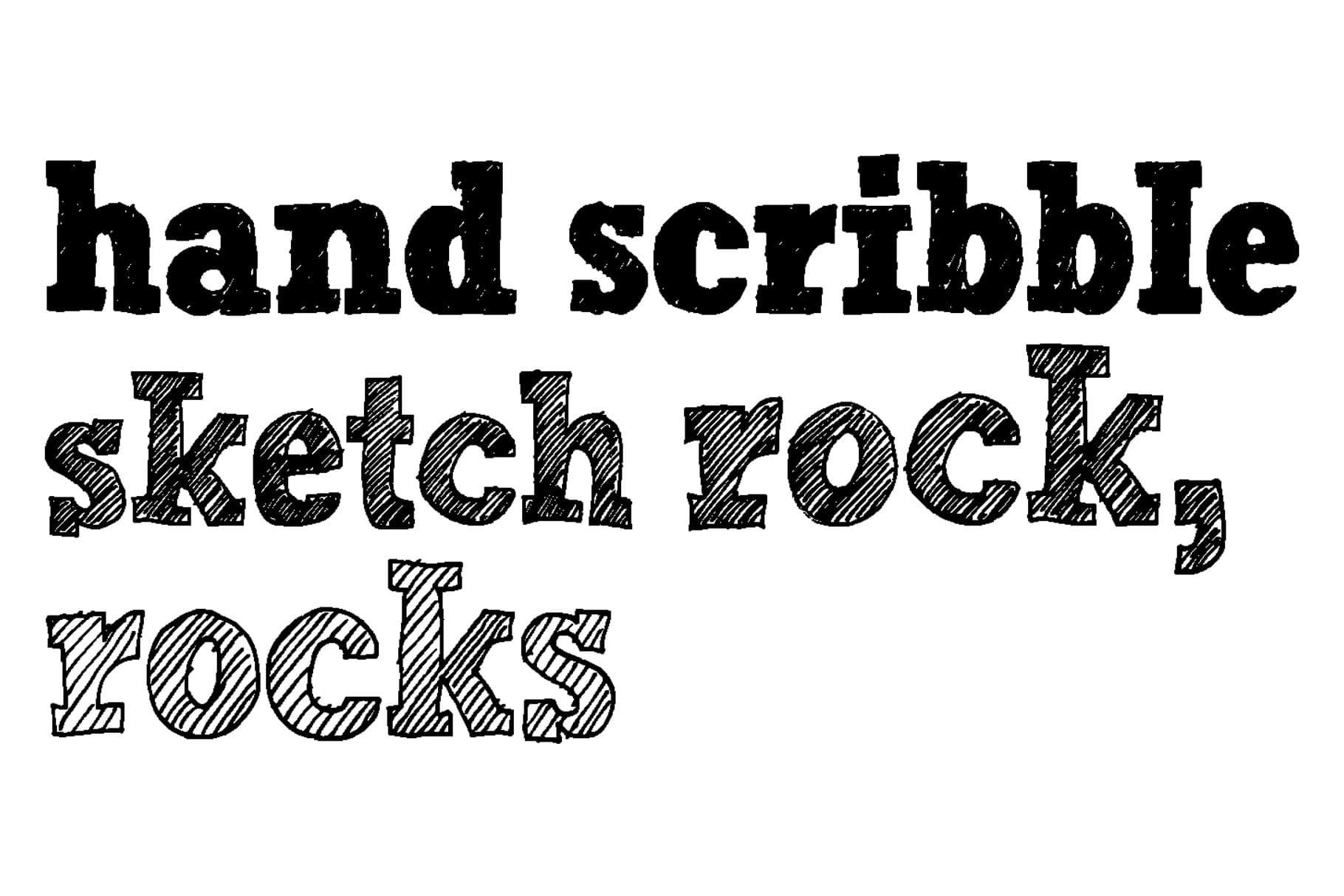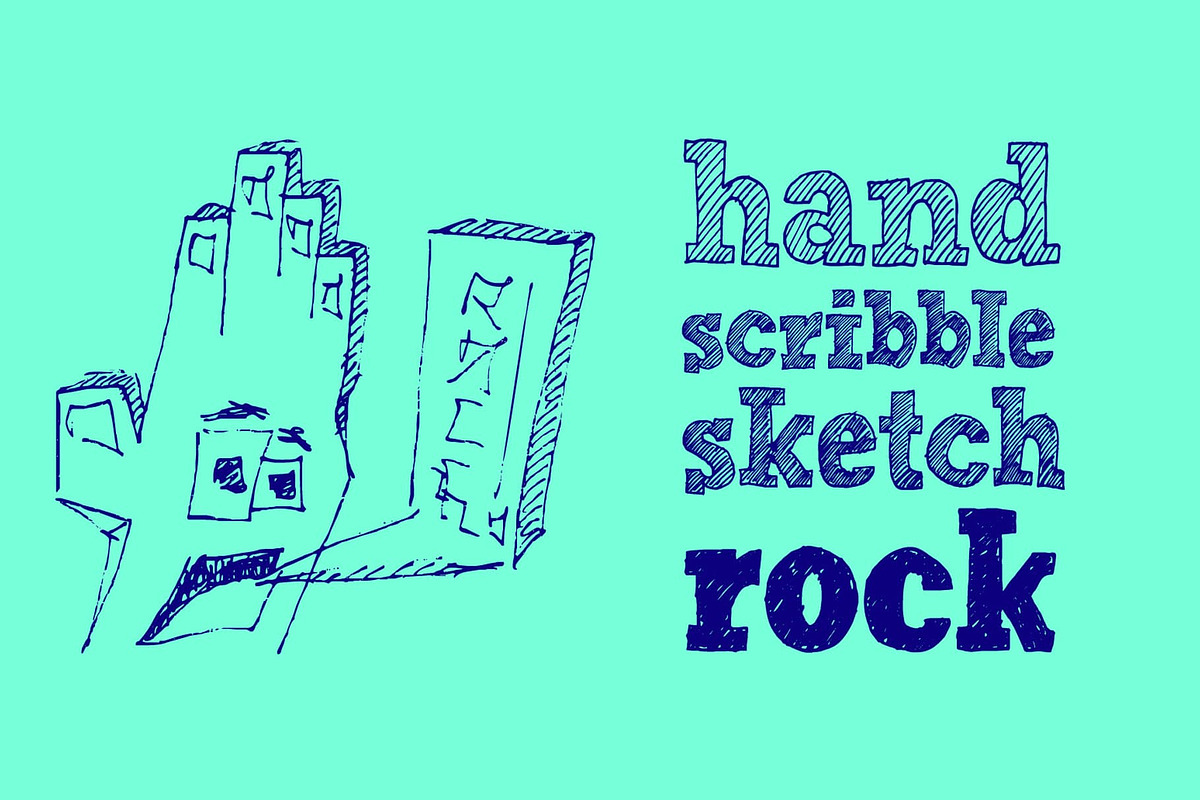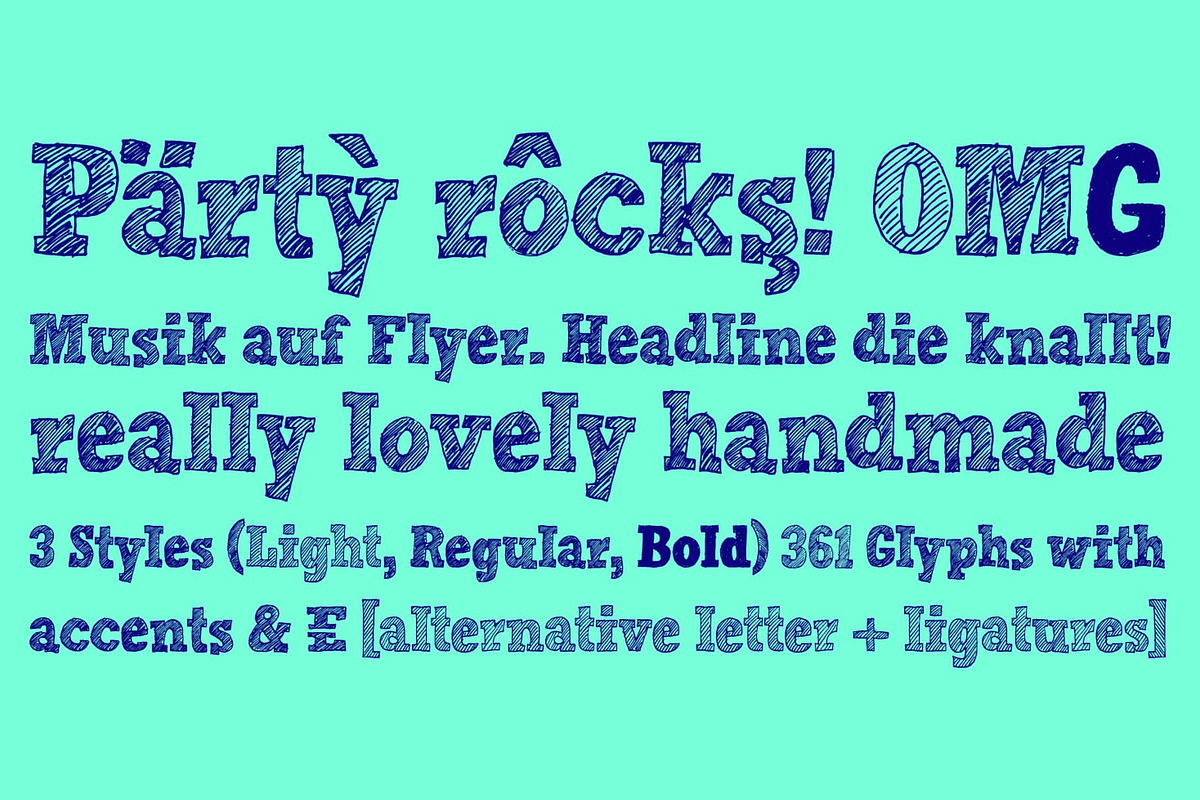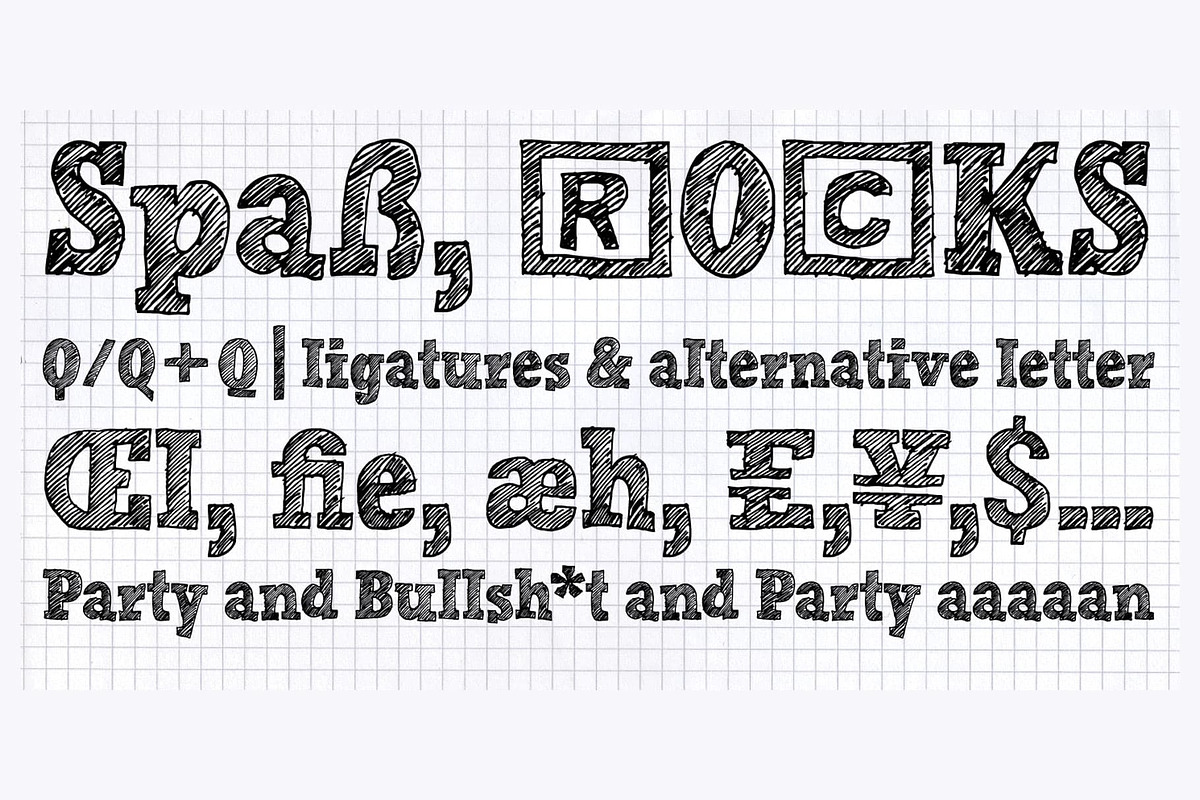
FONT Handmade Scribble Sketch Rock
The typeface “Hand Scribble Sketch Rock” is a interpretation of a classic egyptienne/slab serif typeface with modern and fancy handmade haptics. The 3 styles/weights fits perfectly in each font size. From light till bold. All 3 styles are handemade sketched for diverse display size.
■ Font Name: Hand Scribble Sketch Rock
■ Font Weights: Regular, Bold, Light
■ Glyph Set: 361 glyphs
■ Language Support: Basic Latin/English letters, Central Europe, Baltic, Romanian
■ Specials: alternative letters and ligatures (with accents & €)
■ Type Designer: Manuel Viergutz